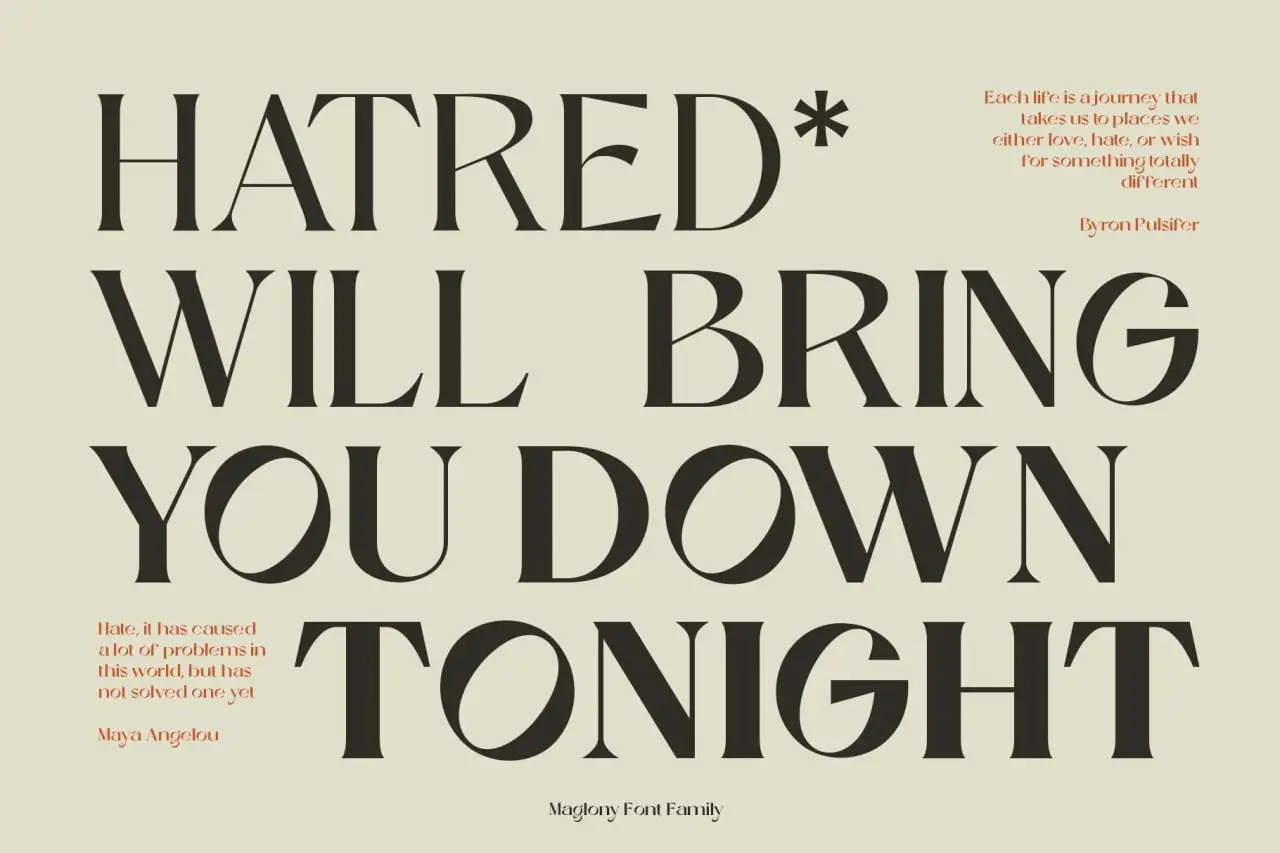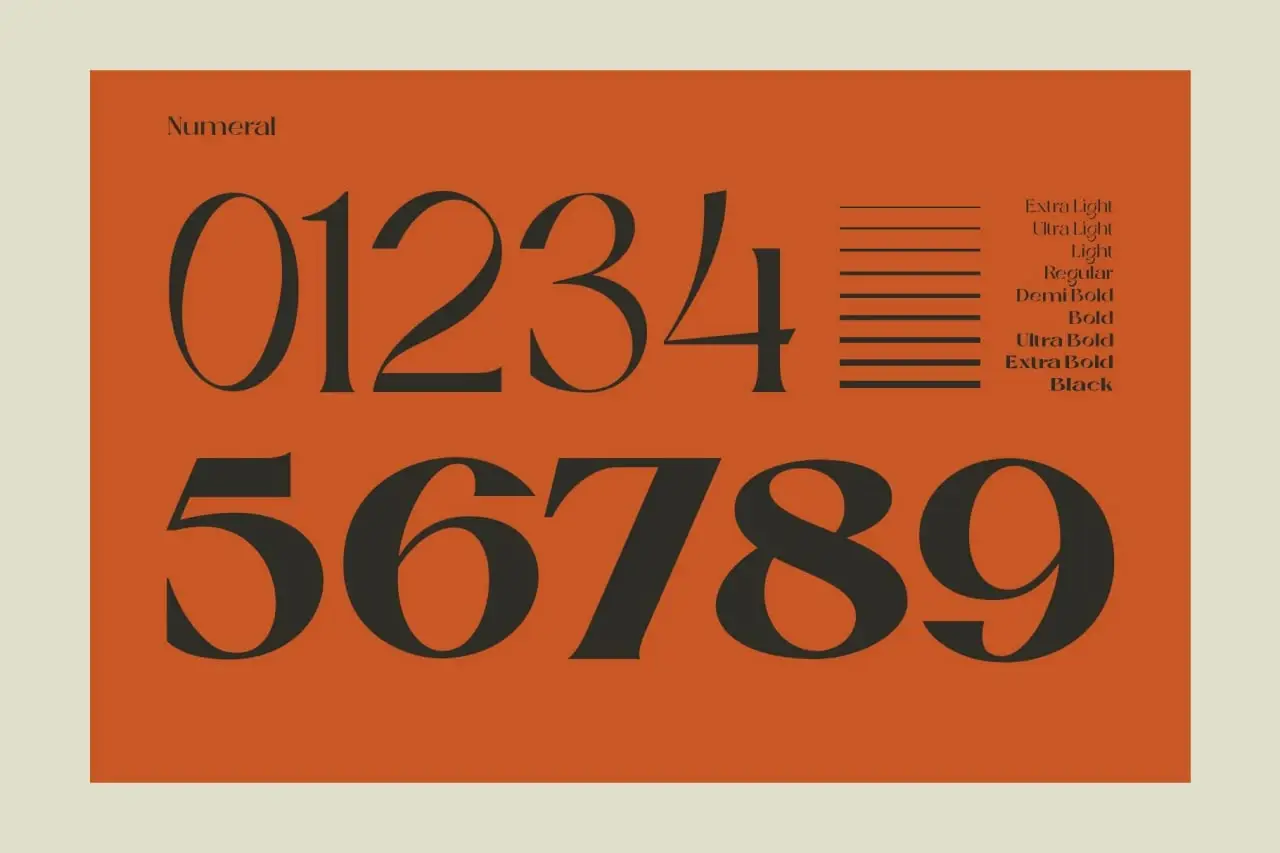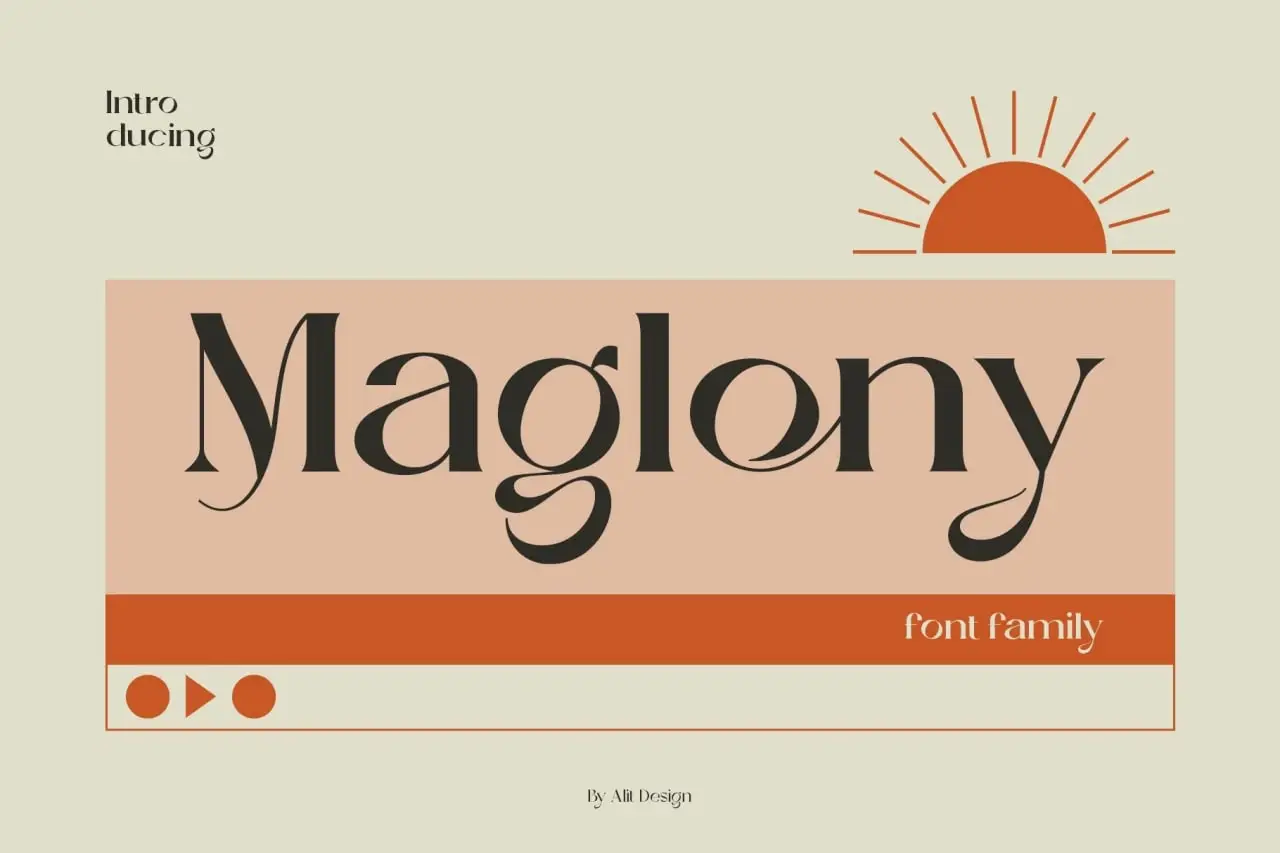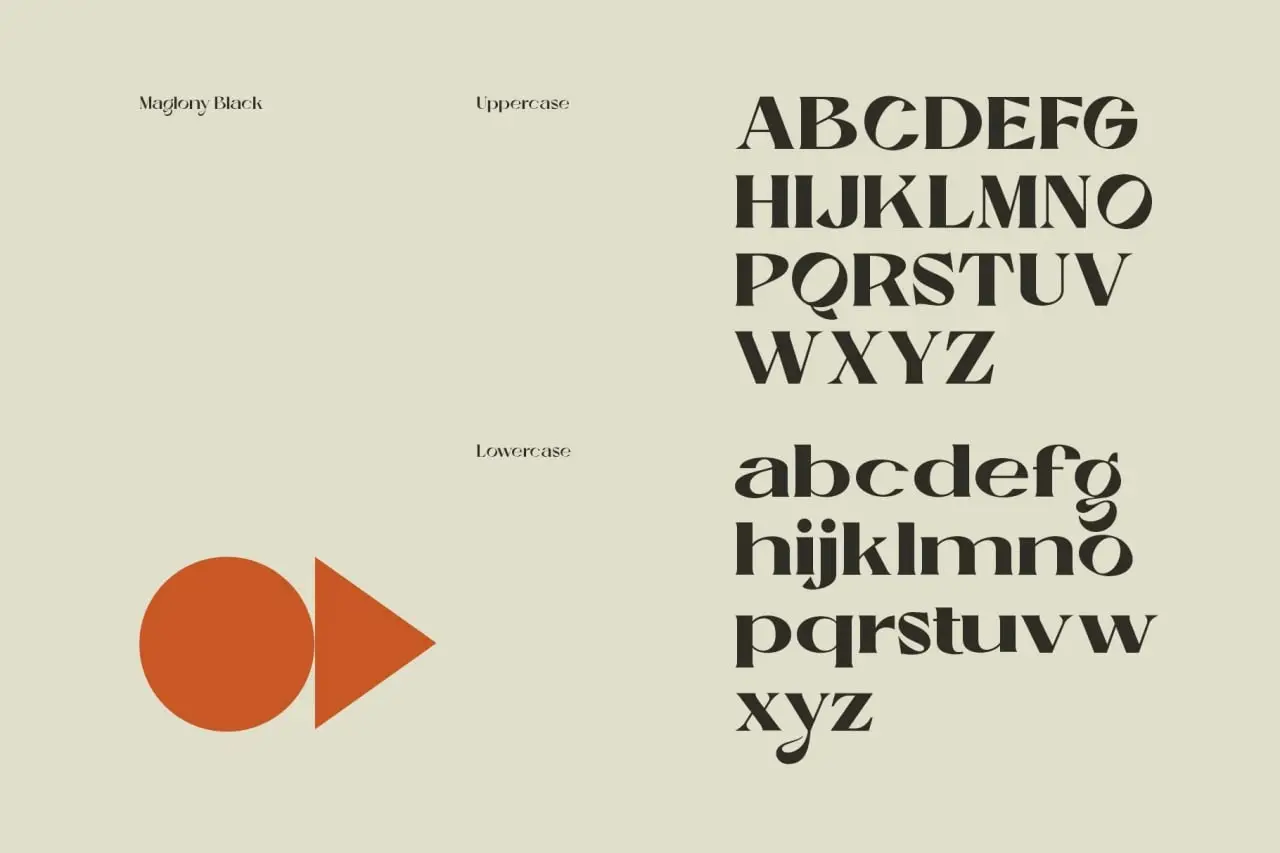
Maglony Typeface
The Maglony Typeface is a unique and versatile font designed to elevate your creative projects. With its elegant curves and modern aesthetics, this typeface is perfect for a variety of applications, including branding, logos, web design, and print materials.
• Multiple weights for flexibility
• Ideal for creating eye-catching logos and branding materials
• Use in web design for a modern look
• Perfect for print projects such as posters and flyers